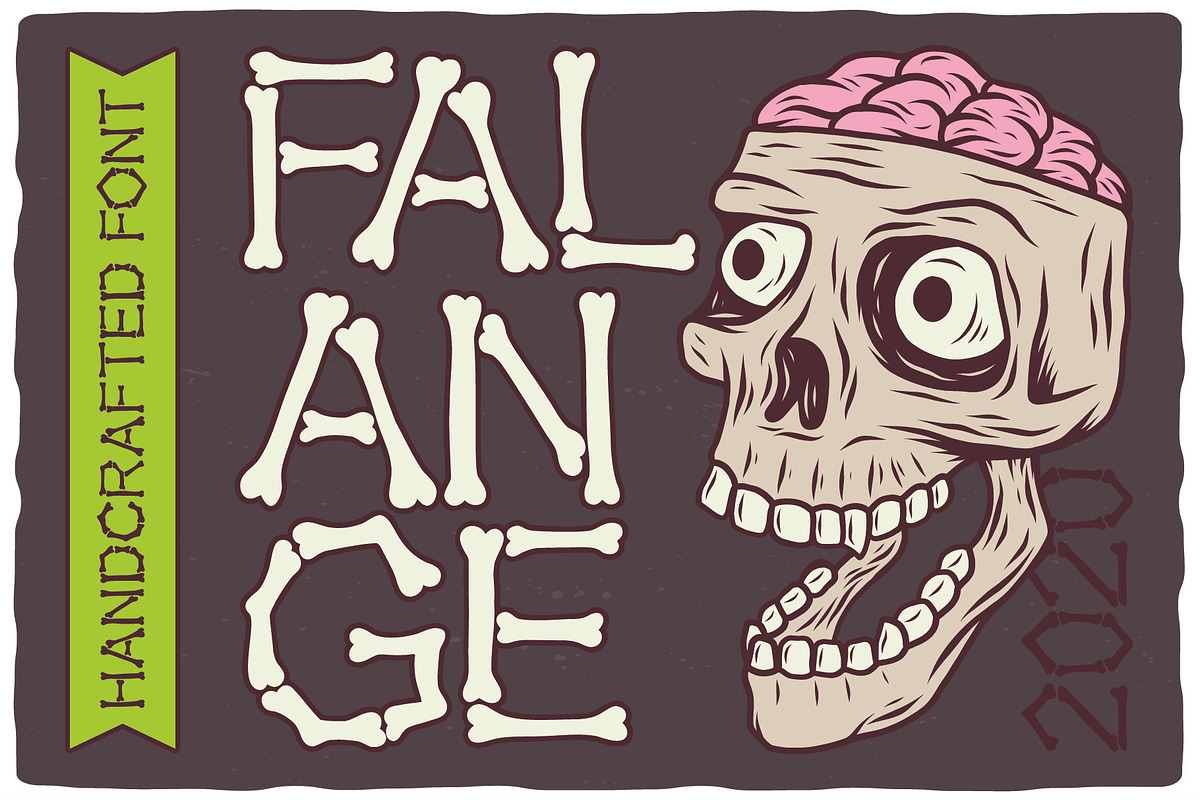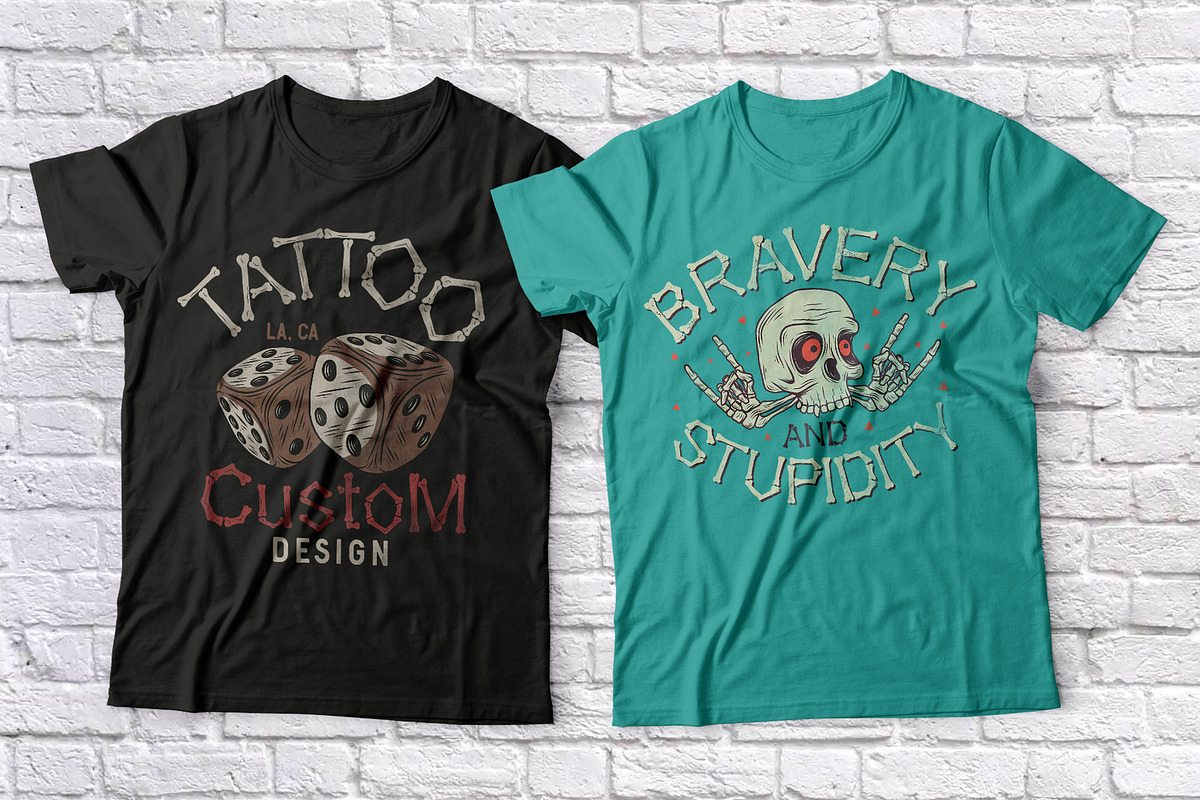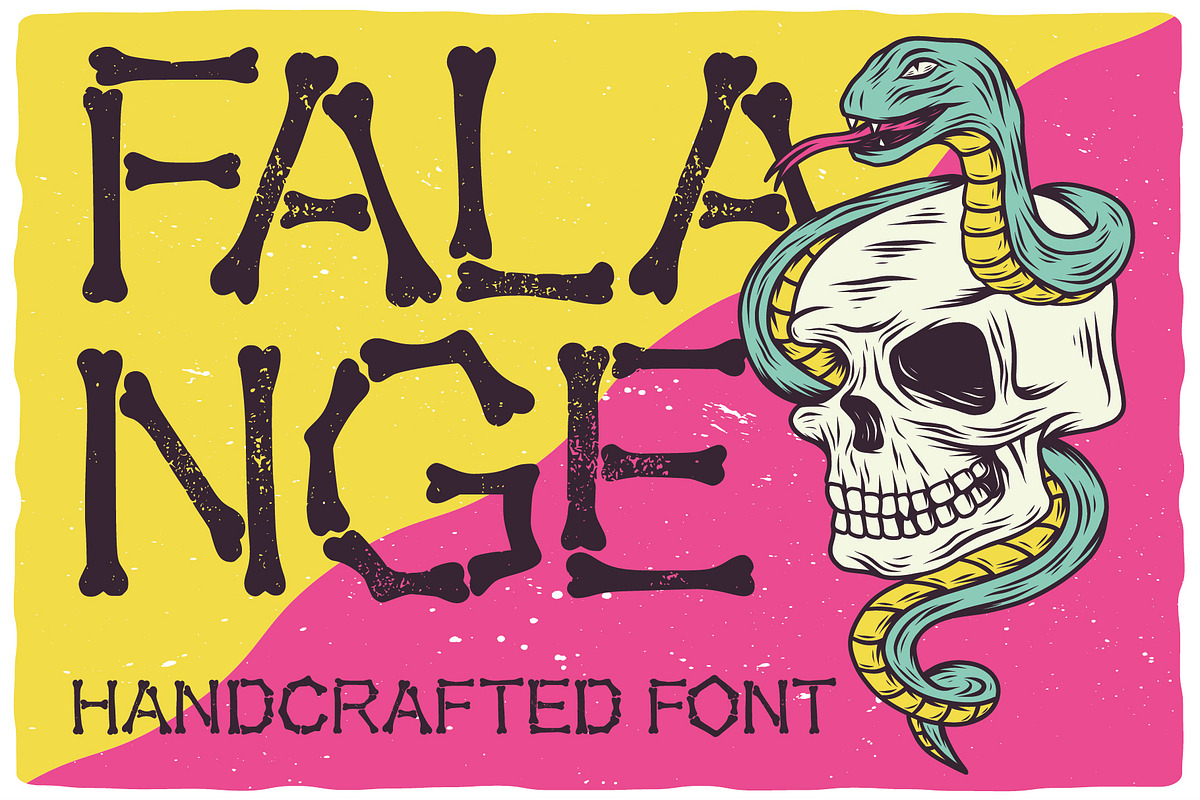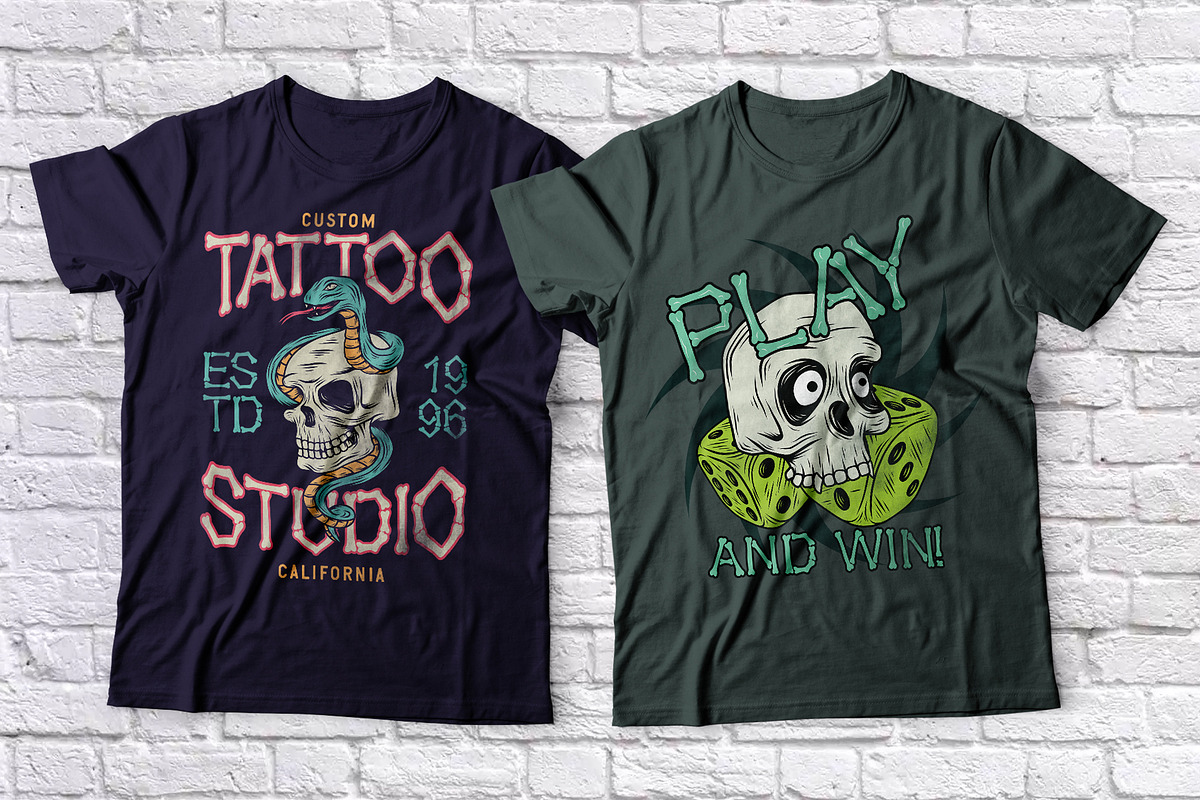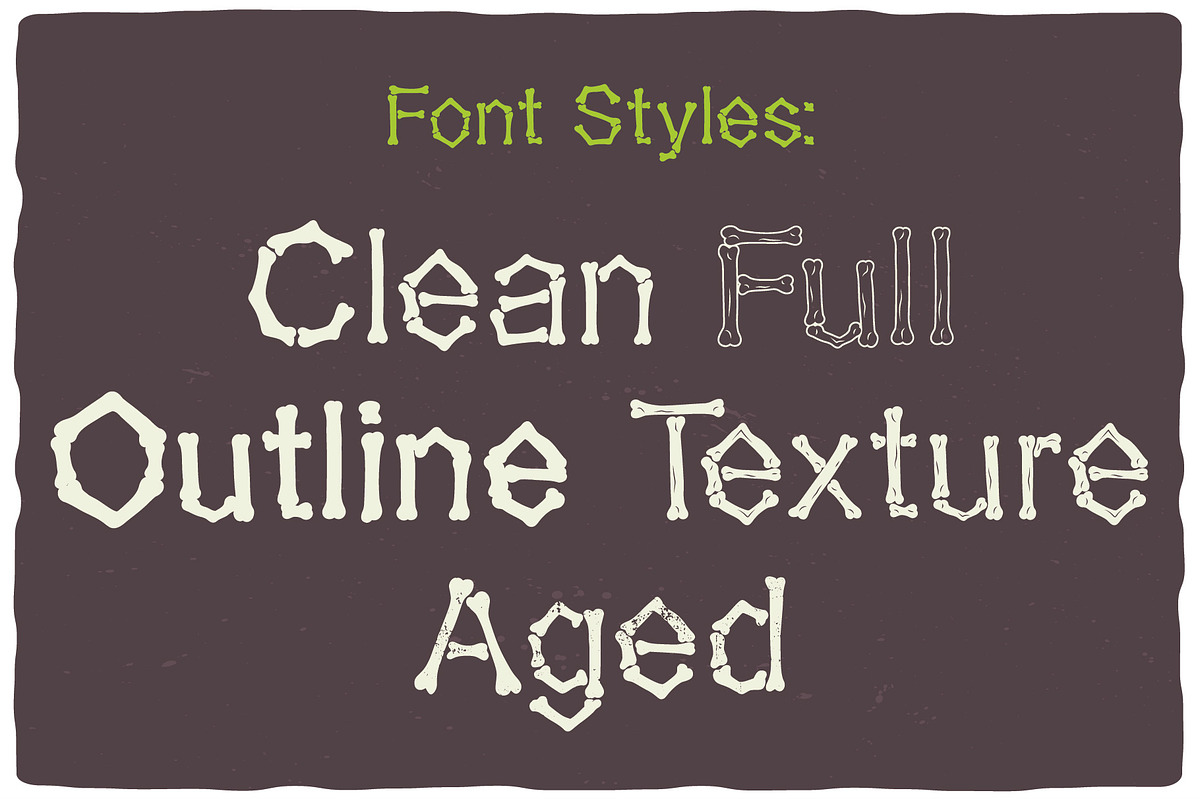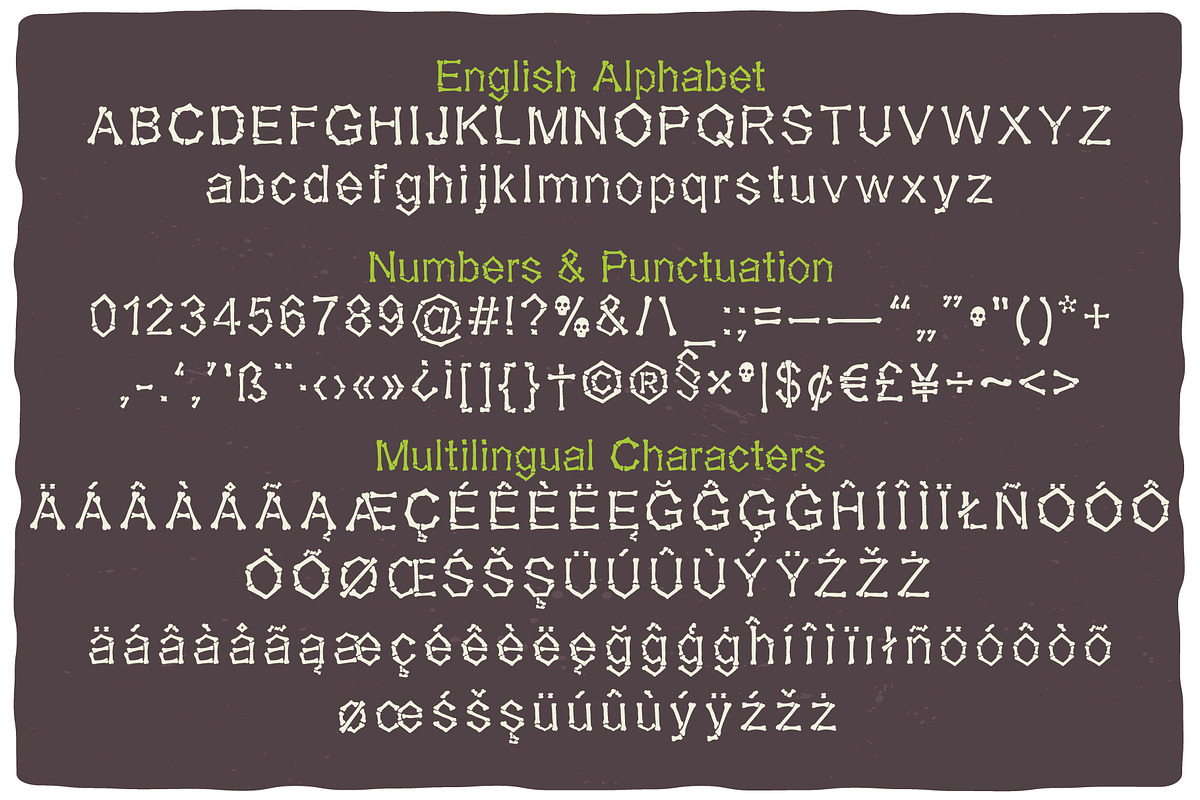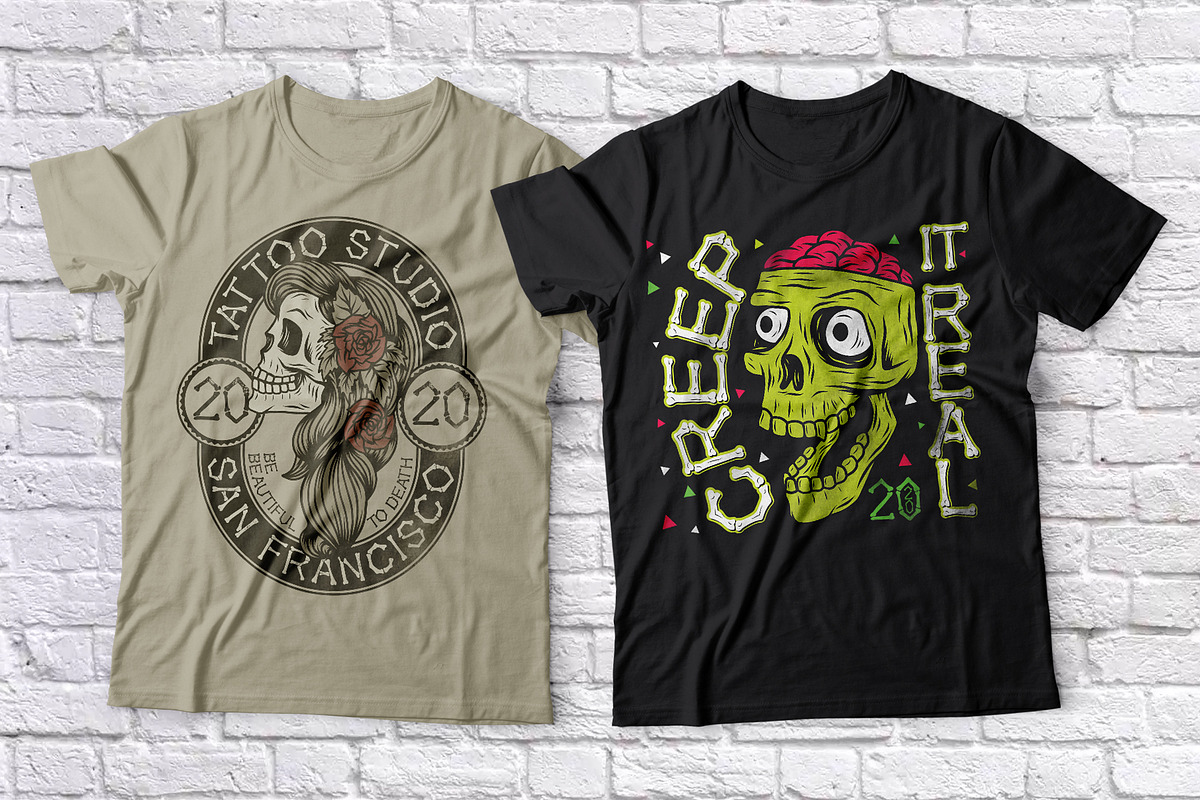
Falange
Introducing a hand-drawn bone-style label font named "Falange". Typeface includes five styles and contains a huge additional and multilingual characters. This font will good viewed on any retro design like poster, t-shirt, label, logo etc.